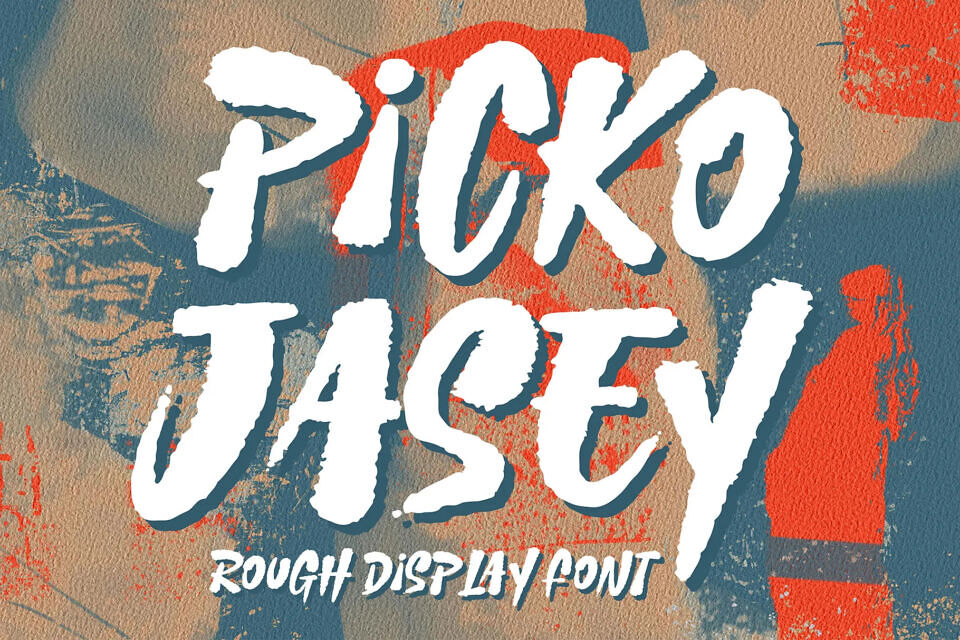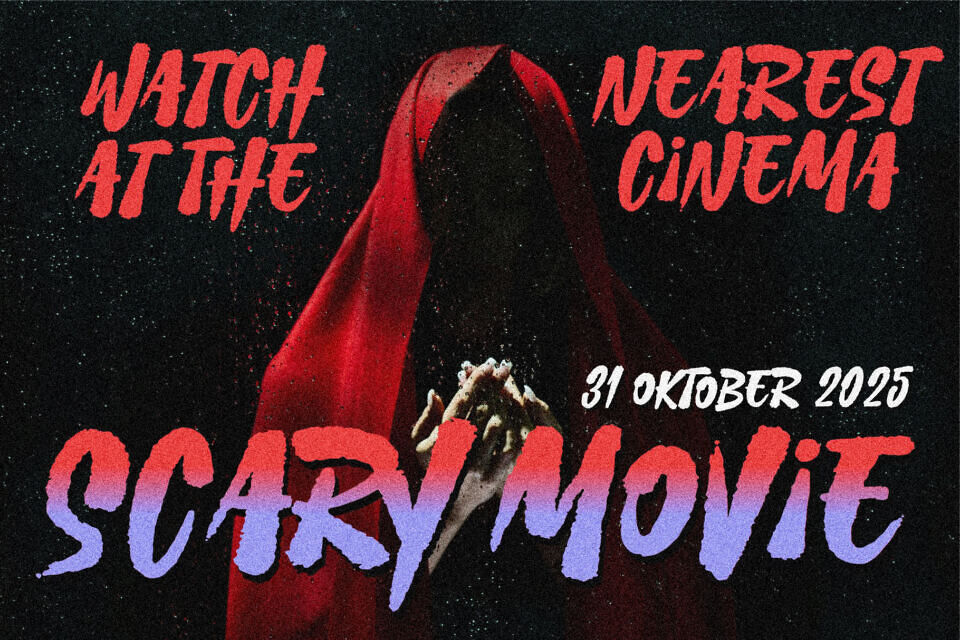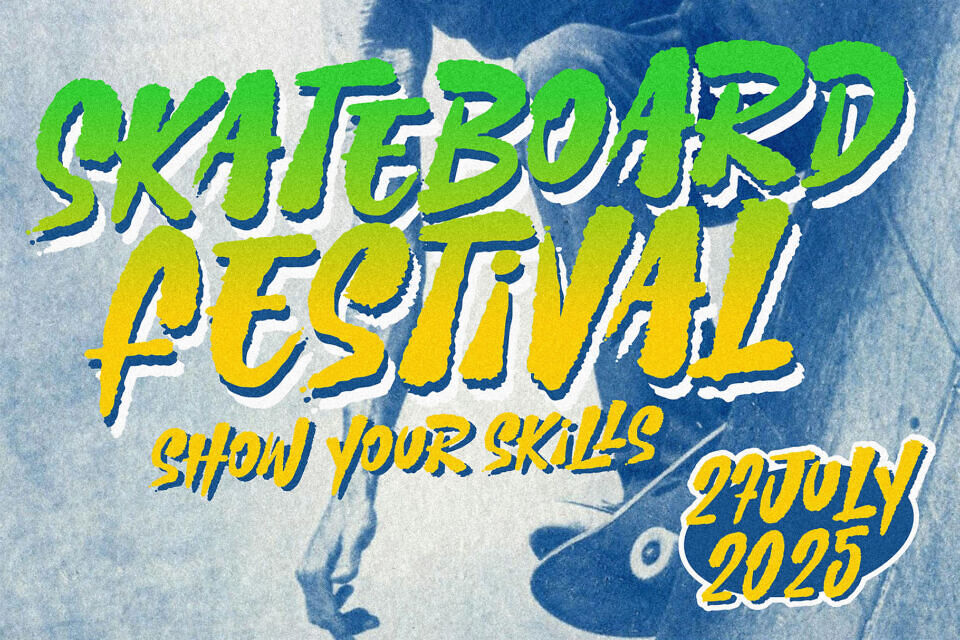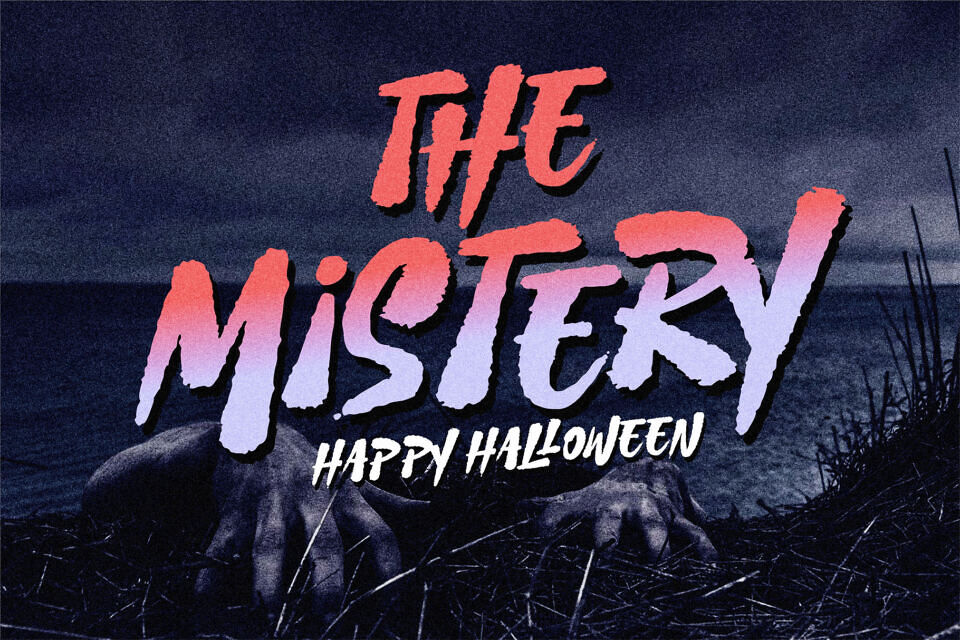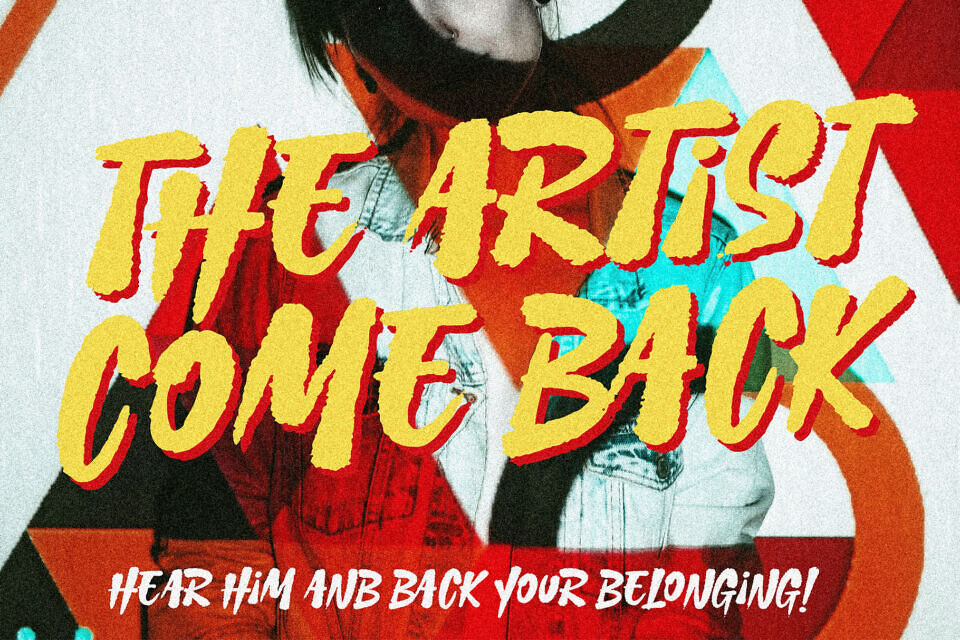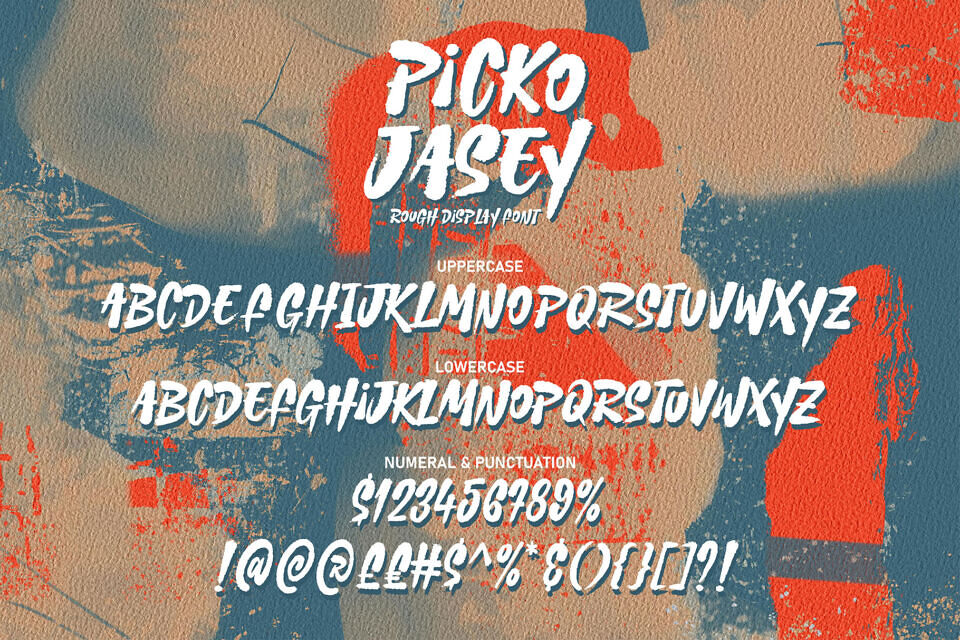
Picko Jasey brings a bold, modern casual brush style with expressive strokes and an energetic, hand-drawn feel. Its casual flow and dramatic movement give designs a natural, authentic feel while keeping a contemporary edge.
This font is highly adaptable and works well in many creative settings. Use it for posters, labels, or project designs where you want a fresh, stylish look. It also shines in headlines, logotypes, and quotes, as well as on apparel, invitations, flyers, greeting cards, packaging, book covers, and other printed pieces that call for a lively and distinctive touch.